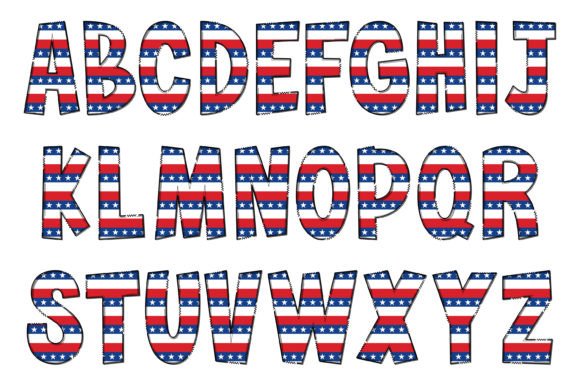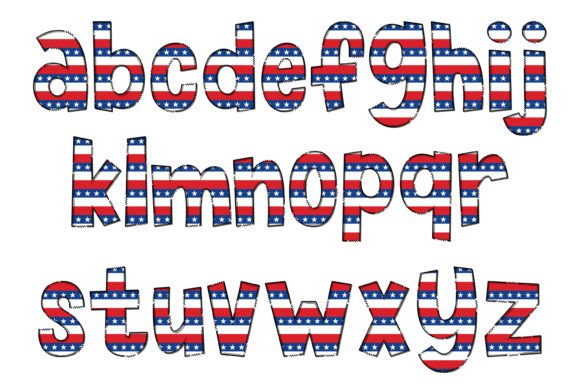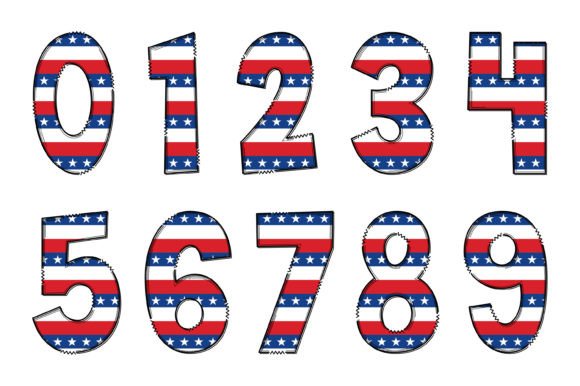
Introducing American Glory Font: A Patriotic Symbol for Your Design Projects
Are you looking for a font that embodies the spirit of patriotism, freedom, and unity? Look no further than the American Glory Font, a stunning decorative font inspired by the American flag. This distinctive design serves as a visual reminder of the ideals and values that the American flag represents, making it an excellent choice for adding a touch of national pride and identity to various design projects.
A Font that Embodies Patriotism
The American Glory Font is more than just a font – it’s a symbol of American patriotism. Its unique design is reminiscent of the American flag, with bold lines and a striking color scheme that evokes feelings of freedom, unity, and national pride. Whether you’re working on a design project for a 4th of July celebration, a patriotic-themed party, or simply want to add a touch of American spirit to your craft, this font is the perfect choice.
The American Glory Font offers endless design possibilities for crafters, designers, and DIY enthusiasts. Here are just a few ideas to get you started:
- Create stunning patriotic-themed crafts, such as iron-on designs, vinyl decals, or paper crafts.
- Design eye-catching invitations, flyers, and brochures for 4th of July celebrations, patriotic parties, or American-themed events.
- Add a touch of national pride to your social media graphics, blog posts, or website headers.
- Make beautiful handmade cards, gift tags, or journal pages with a patriotic twist.
Tips for Using American Glory Font
To get the most out of the American Glory Font, here are a few tips to keep in mind:
- Experiment with different font sizes and colors to create unique and eye-catching designs.
- Combine the American Glory Font with other patriotic-themed graphics, such as clip art or textures, to create a cohesive look.
- Don’t be afraid to get creative and try out new and innovative design ideas!
Why Choose American Glory Font?
So, why choose the American Glory Font for your design projects? Here are just a few reasons:
- Unique and eye-catching design that captures the essence of American patriotism.
- Endless design possibilities, from crafts and DIY projects to professional design work.
In conclusion, the American Glory Font is a stunning and patriotic font that’s perfect for adding a touch of national pride and identity to your design projects. With its unique design, compatibility with popular design software, and endless design possibilities, this font is a must-have for designers, crafters, and DIY enthusiasts. So why wait? Download the American Glory Font today and start creating stunning patriotic-themed designs that capture the essence of American glory!